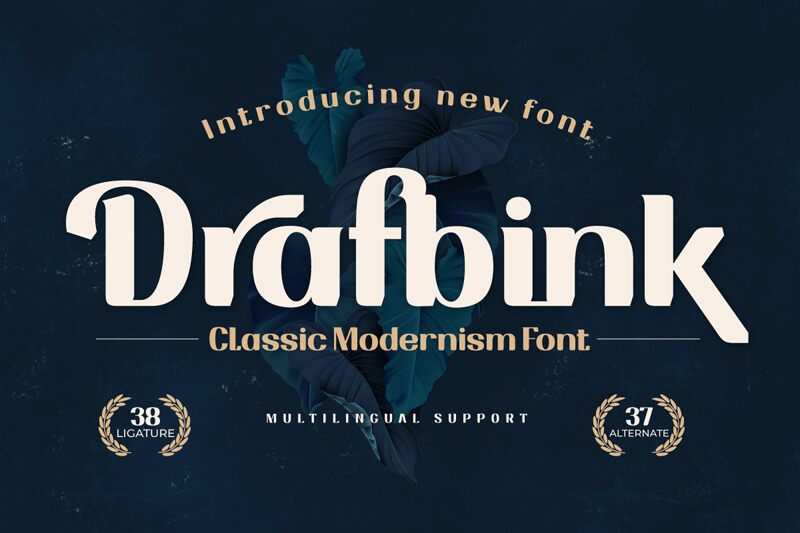
Drafbink Trial Regular
Drafbink font by Twinletter is a bold display font with a nostalgic retro vibe. Ornate and decorative, the vintage typeface reflects elements found in classical styles while also maintaining a unique modern touch. Impactful with its serif forms and distinct curves, this creation is both stylish and completely free for your enjoyment.
Its variety of use cases include posters, logotypes, websites, postcards, social media posts, advertisements as well as print design projects like book or magazine covers. With its overall look that instantly captures attention, Drafbink can really make your message stand out.